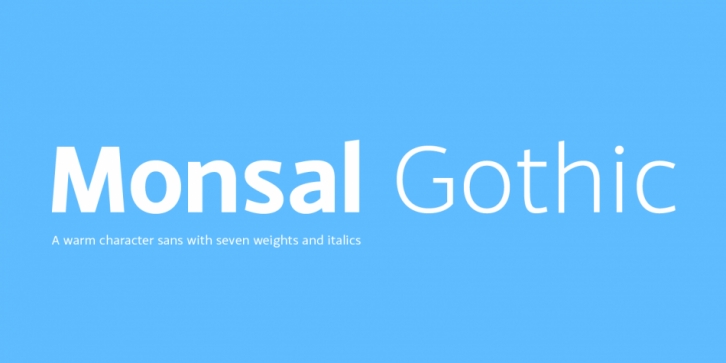
Monsal Gothic is a sans serif font family. This typeface has fourteen styles and was published by The Northern Block.
A contemporary gothic sans font family with simple and compact proportions. The design pays close attention towards balance and expression of form, creating a functional yet elegant typeface suitable for extensive text-based publications in print and screen. Details include 680 characters, seven weights with true italics, small caps, manually edited kerning and Opentype features.